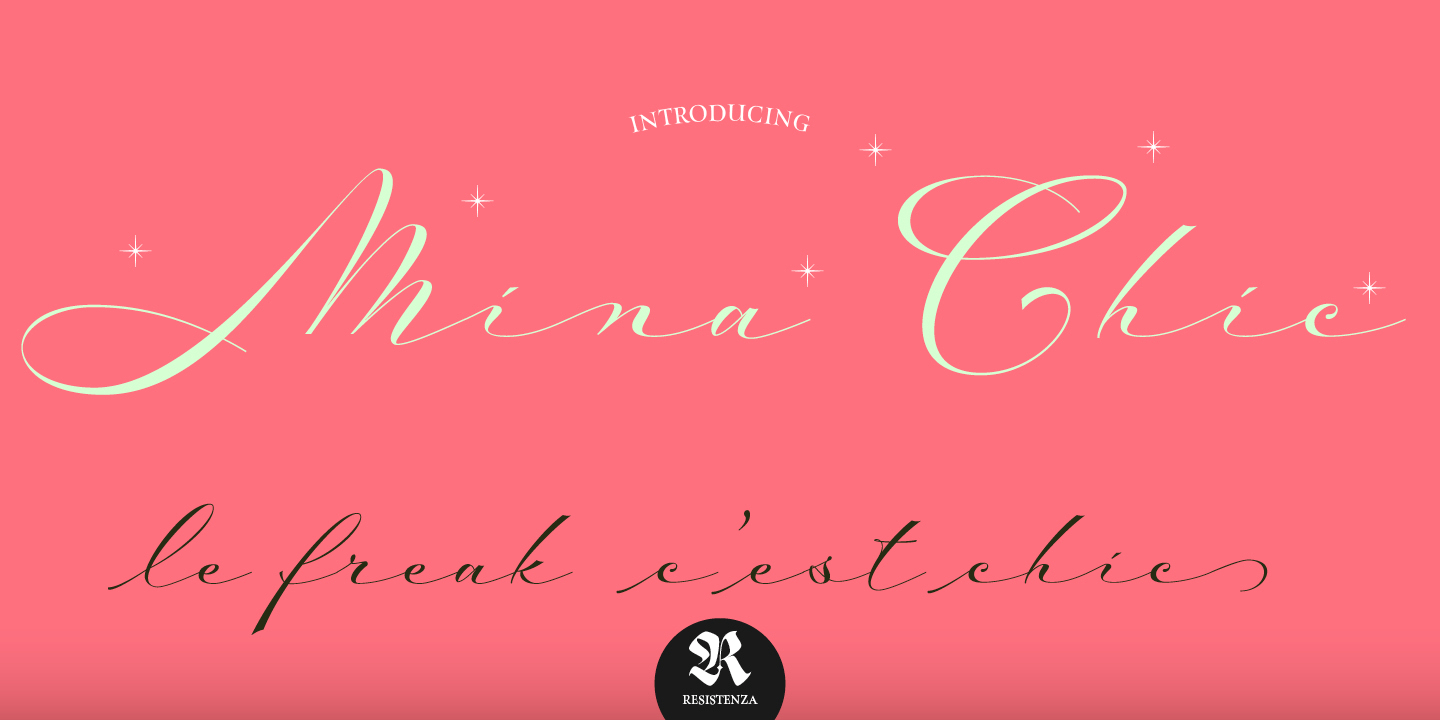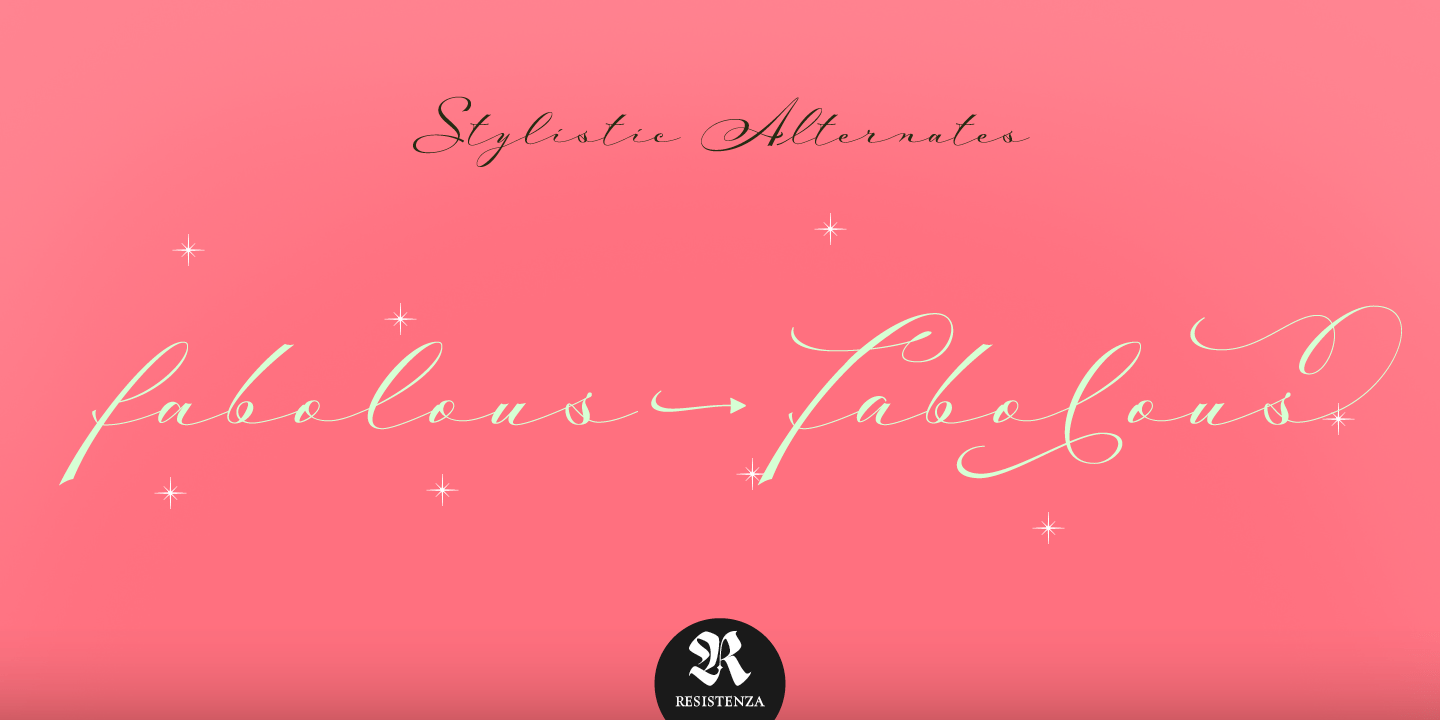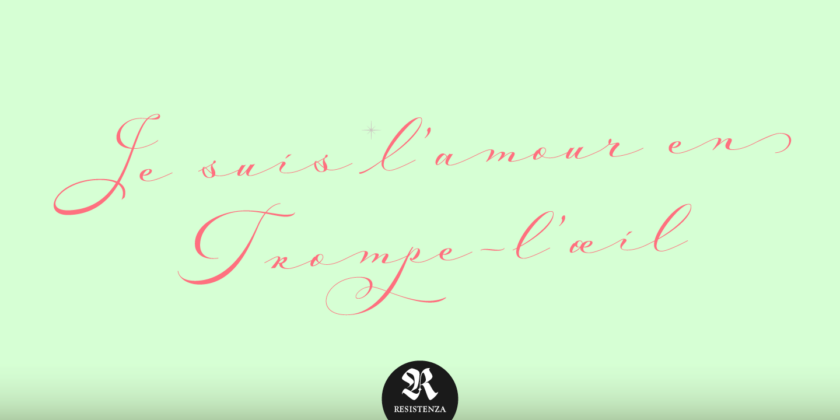
About Mina Chic
Mina Chic is fresh, elegant and sexy. She was raised by the french riviera sun, loves watching Nouvelle Vague films and adores french pop divas from the 60\’s. She wants to be a star! Mina Chic is a new version of one of our most popular scripts, Mina.…